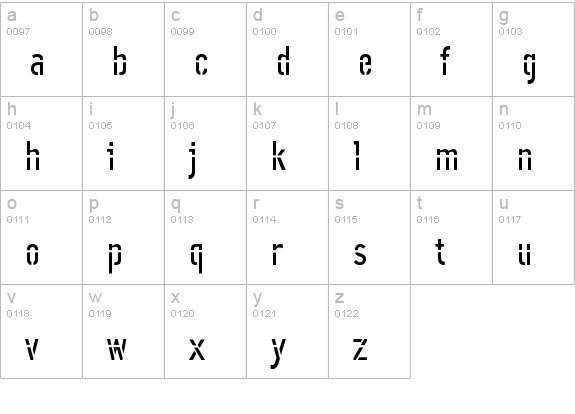
Offline-Regular is the standard, neutral variant in the Offline typeface family \xE2\x80\x94 well suited to general body text, paragraphs, and standard typographic work.
Offline-Regular is a versatile and modern font that combines clean lines with a touch of sophistication. This font is perfect for a wide range of design projects, from branding to editorial layouts. Its simple yet elegant design makes it easy to read and can add a professional touch to any project. Best of all, Offline-Regular is available for free download at FontsMarket.com. This means you can easily access this high-quality font without any cost, making it a valuable addition to your font collection. Whether you're a designer looking for a new go-to font or simply want to enhance your creative projects, Offline-Regular is a fantastic choice that won't break the bank. Download it today and elevate your designs with this stylish and timeless font.